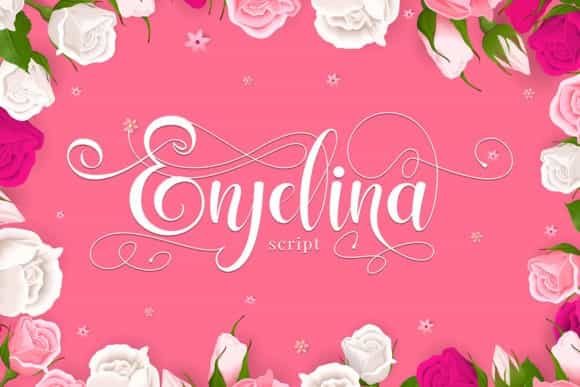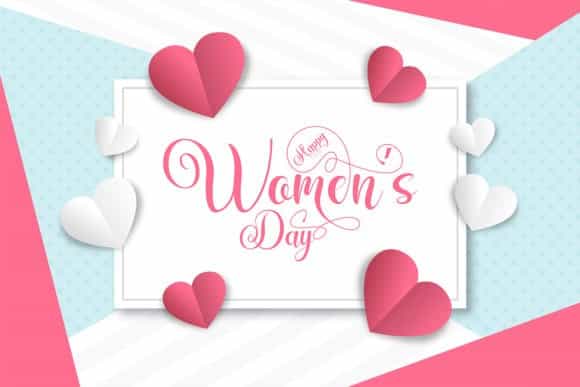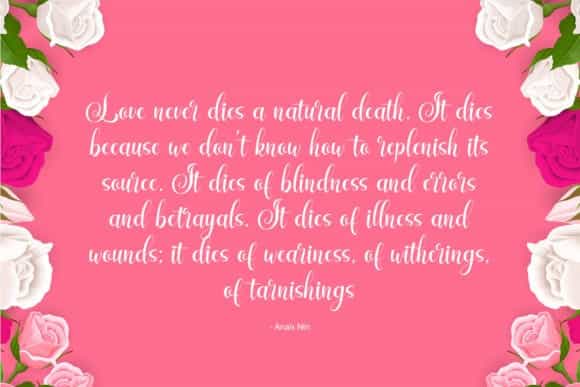
Enjelina Font, have the privilege of using the OpenType features and let the fun and sophisticated font make you happy while increasing your creativity! You can apply this font without any difficulties.